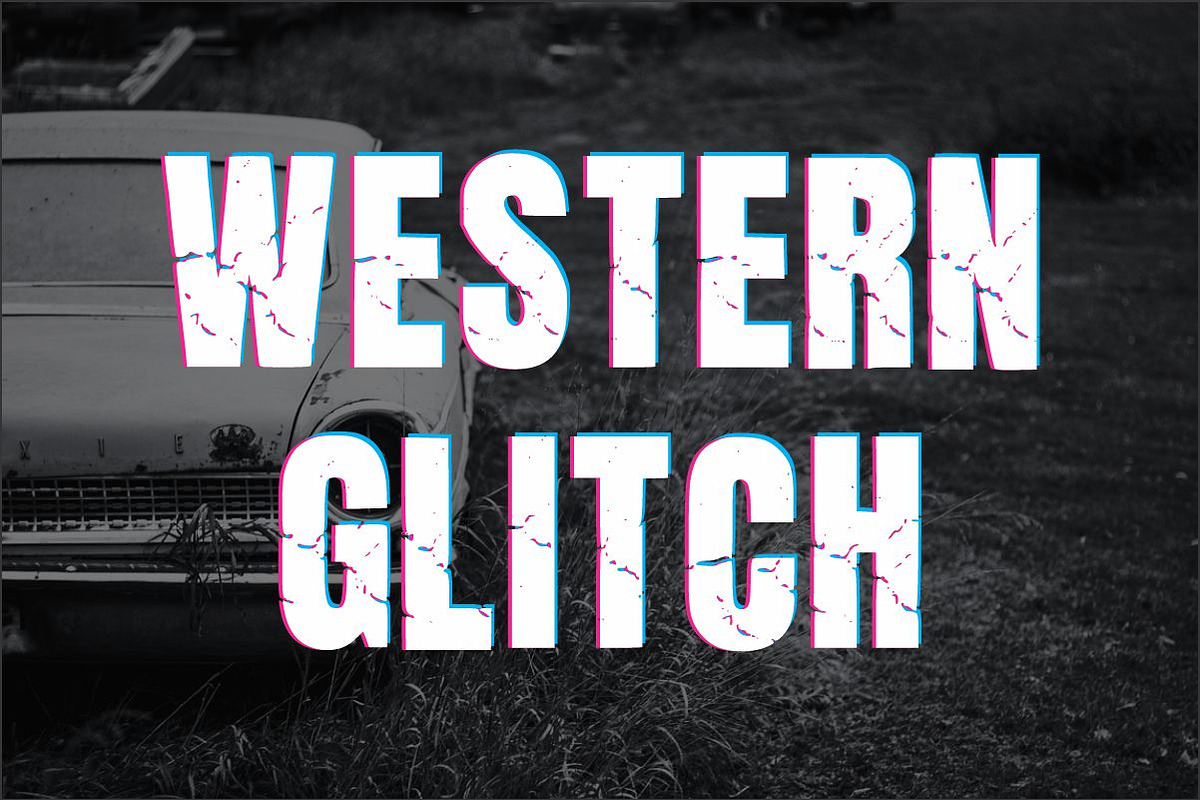
Western Glitch
Western Glitch is a elegant and glitch font. Its informal and casual style makes it a top choice for any creation. It will look cool on visual designs and works such as product packaging, T-shirts, labels,